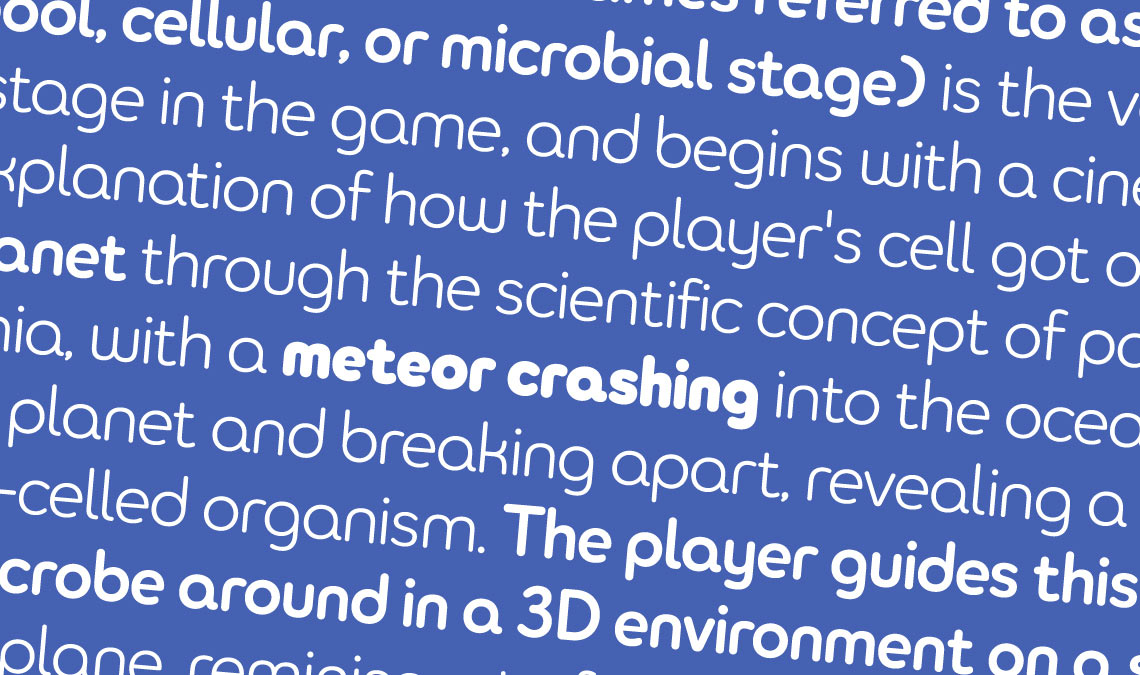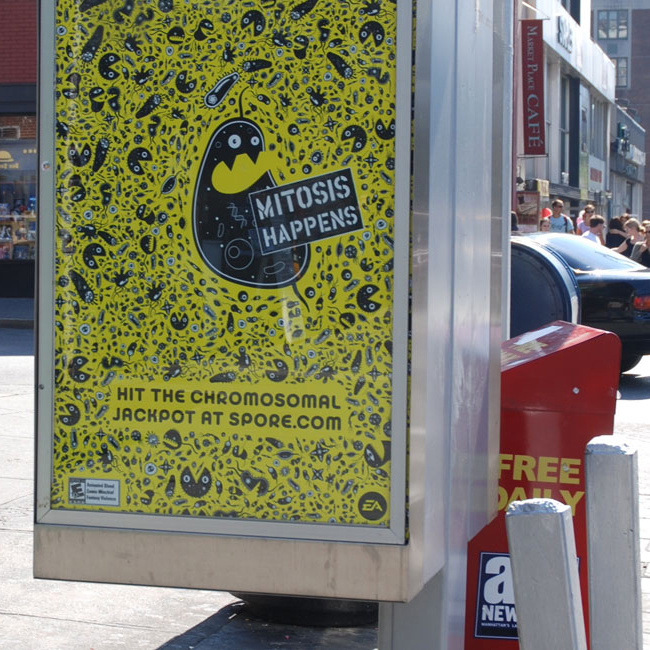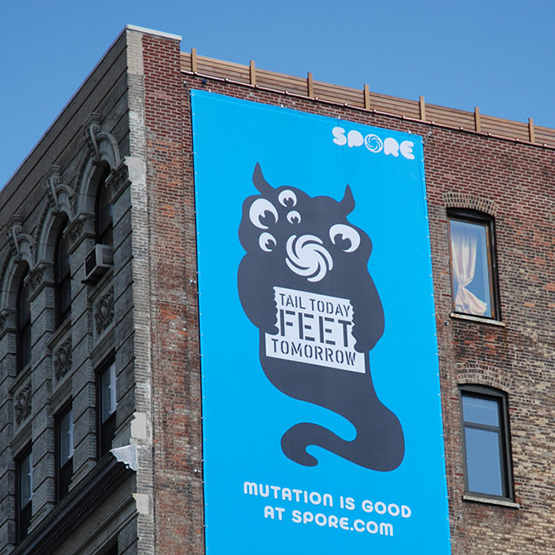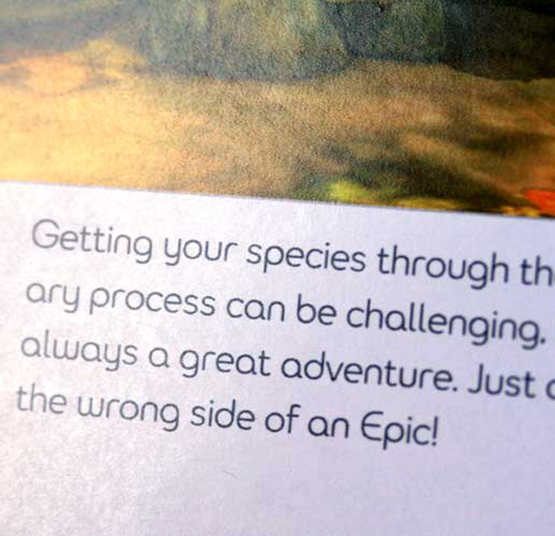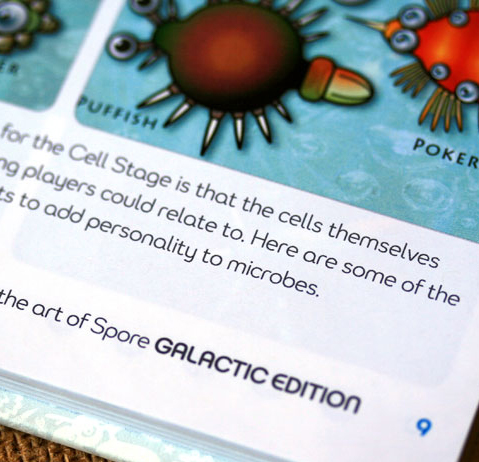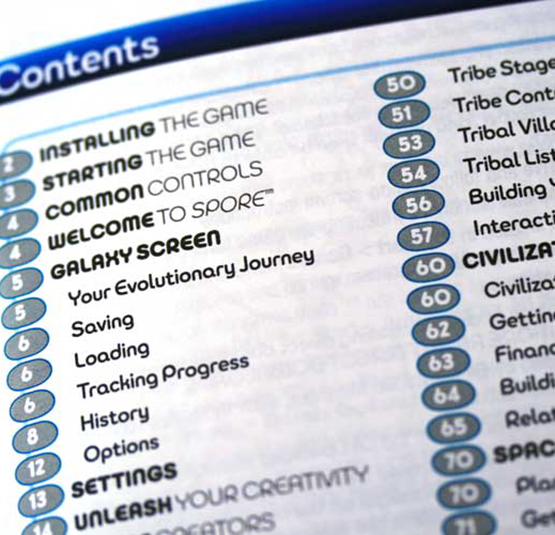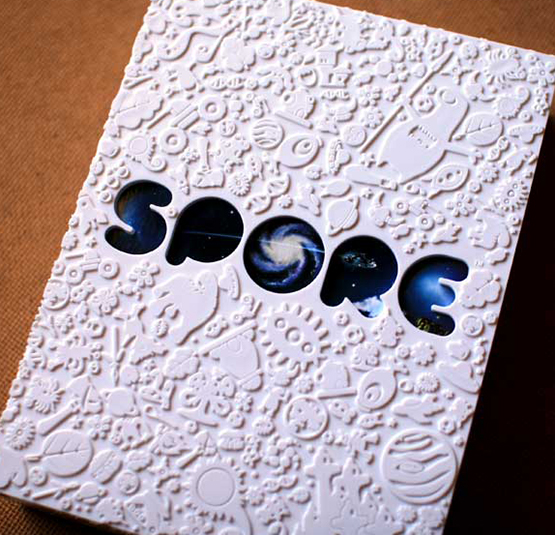
Spore, a custom typeface
In 2008, the hit life simulation computer game Spore was published by Electronic Arts Video Games. Spore is a multi-genre single-player god game, divided into 5 phases, from cell to space stage that allows the player to create a whole new species from its very beginnings as a microscopic organism all the way to a highly developed space traveling civilisation. Since its release, a series of spin-offs emerged, such as Spore Origins for mobile devices.
The typeface is one of the pillars of spore's branding strategy
Cinco Design, was hired by Electronic Arts to develop an integrated identity system for Spore. As part of this project a new custom typeface was commissioned. TypeTogether partnered with Pete McCracken (The Portland Type Company) on the development of a three-weight tailored type family.
The exclusive fonts have been used for all communication material linked to Spore including the extensive game manual, and marketing campaign announcing the game. The branding typeface was conceived to be one of the pillars of Spore’s strategy, functioning in body text as well as in display situations. It was not intended for actual screen use within the game.
typeforms based on the logo
The brief dictated that Spore had no specific target age-group. Therefore the appearance of the fonts should be inviting and provide an overall friendly warm feeling. The seminal design inspiration and mechanics of the type design stemmed from the Spore logotype, designed by Cinco. The logo has disproportionate über-rounded shapes, knocked out counters and a stylized universe in the ‘O’ which operates as an integrated mark.
Three main characteristics the fonts were defined in the brief:
1. Circular geometry
2. Rounded ends
3. Symmetry
The resulting shapes are a bit quirky and rather inspired by handwriting than printing, eg ‘M, N, W, X, Y’. Although apparently geometric, letters had to be optically adjusted for them to work harmoniously in text and to avoid unpleasant dark spots.
optical adjustments
Counters were slightly squashed to make them appear round and to keep a consistent thickness of the strokes, and all connections were made thinner to avoid blobbing. Another detail driven by legibility is the little outstroke on lowercase ‘a’, which as repeated in ‘q’. It helps to distinguish the ‘a’ from the ‘o’ in text setting and it gives the ‘q’ a bit of idiosyncrasy. One of most difficult letters to control were upper- and lowercase ‘k’. It is a complex shape with three strokes and counters that needed to feel geometric without becoming ridiculous and to be balanced with each other.
printed game manual
Three weights were required, Light, Regular and Bold with a standard character set, that was later extended to support Eastern-European languages using the Latin script.
Contrary to usual practice of starting with the Regular, Multiple Master technology was used instead to create the Regular as an interpolation between Light and Bold. Although this process does save time, the resulting font always has to be fine-tuned and spacing and kerning adjusted. This approach guarantees the possibility to easily add more weights at a later date.
The creation of a custom typeface allowed Spore to have an overall unique branding approach and comprehensive look not generally seen in the gaming industry. In use for several years running, the typeface has proven its versatility within the expansive collateral, marketing and advertising galaxy of Spore.